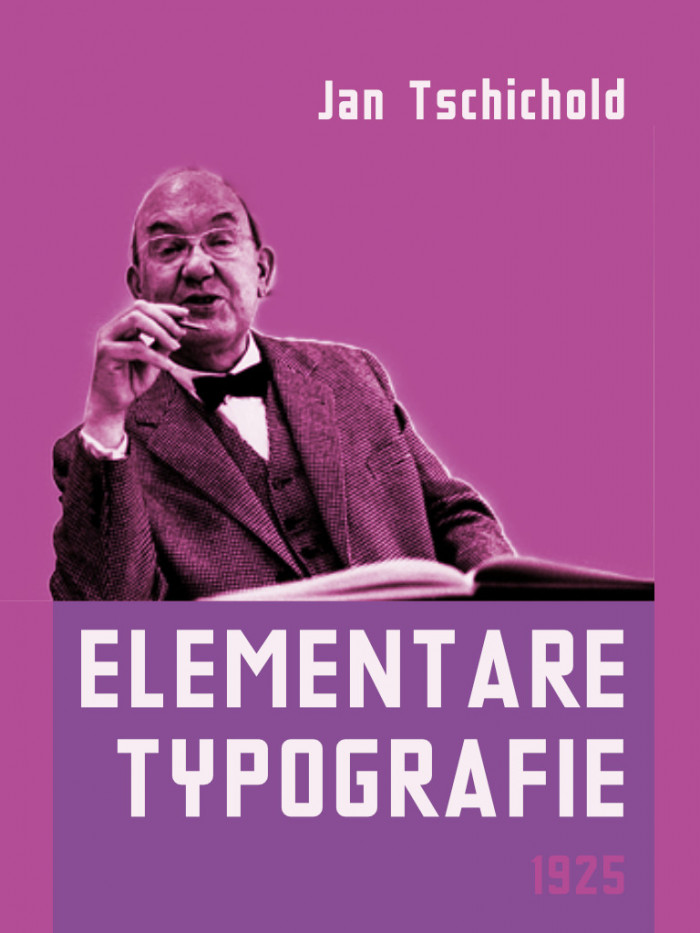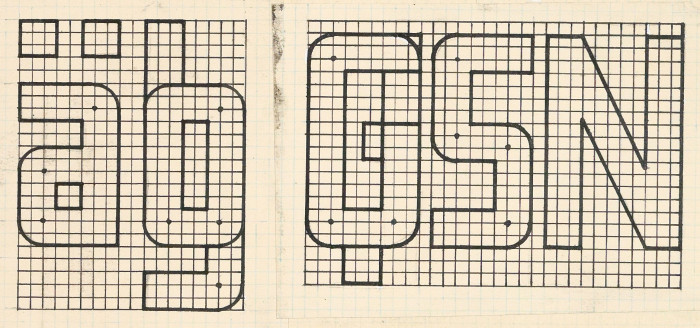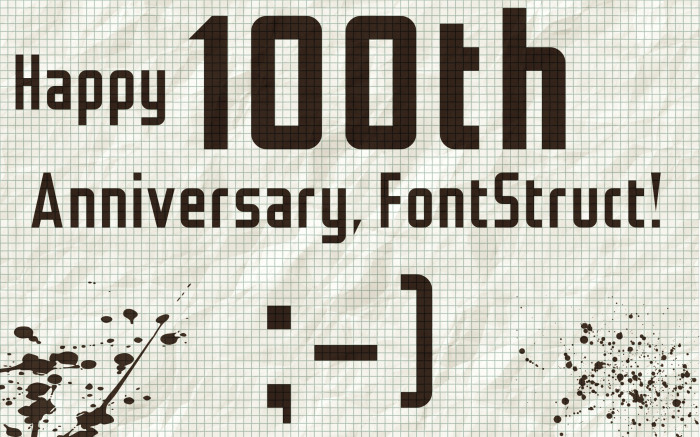
An earlier (1926) constructed alphabet from Jan Tschichold, based on a somewhat finer grid and a slightly less condensed uppercase and a bolder appearance overall.
With a caps-height of 17, reproducing some diagonals proved quickly to be between nightmarish and impossible, thus the fidelity is a bit less exact than my previous recreation.
For a digitisation that encompass both designs and offers proper alternates, you can look at Peter Wiegel’s Tschichold.
This is the original construction grid, for the most part easily replicable with a 2×2 filter. The complete alphabet: uppercase and lowercase.
The digits also appear in the uppercase link if anyone is wondering (the O is playing double duty as the zero in strings of numbers)
I wonder what the rationale for the lower right hard corner in the lowercase a. He didn't use it a similar condition for the b,d,p,or q.
@George: Thanks. I will go out of a limb and speculate that it’s from the way they’re conventionally constructed in blackletter.